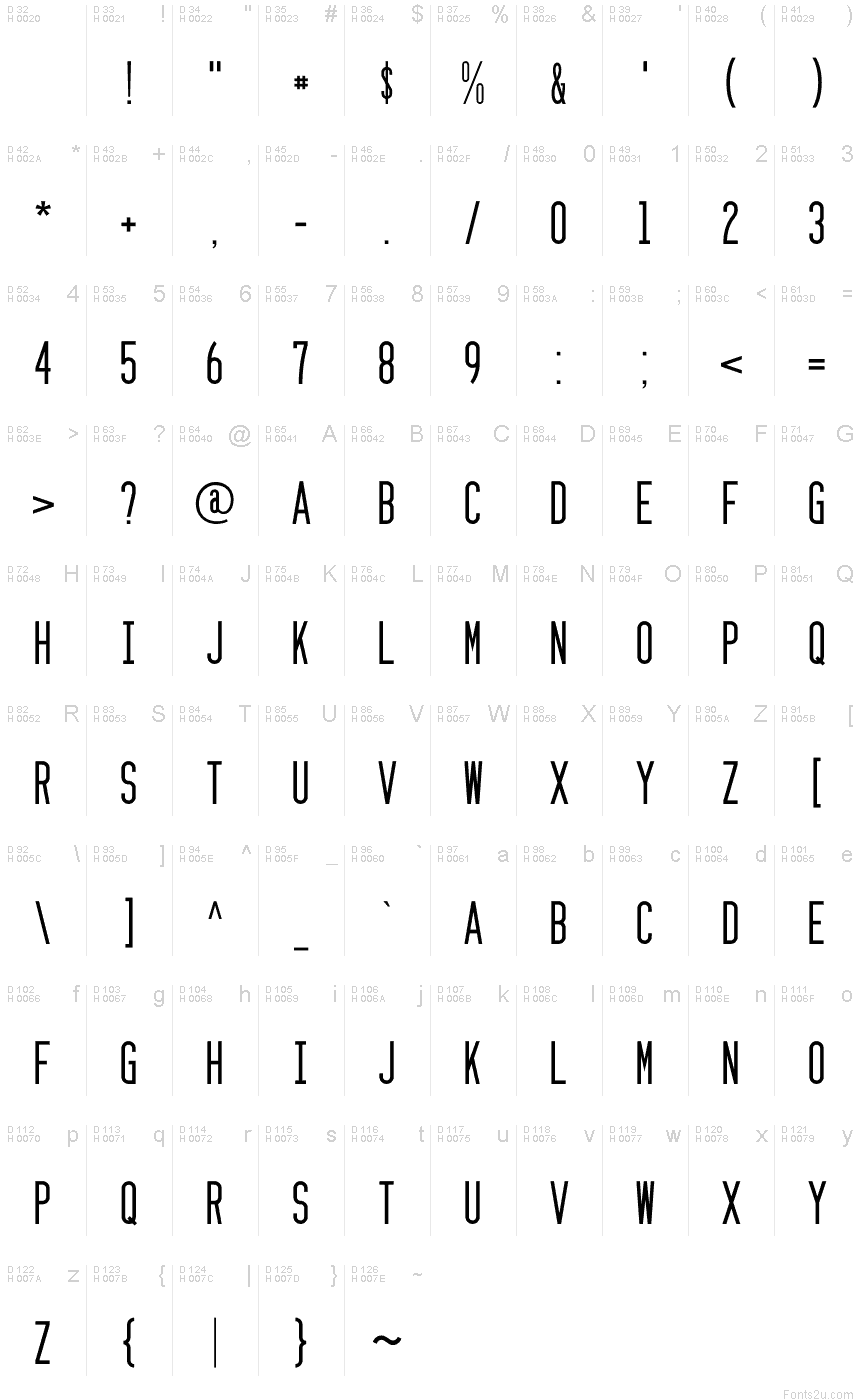
Zzyzx
Zzyzx, crafted by the imaginative Ash Pikachu Font, is a sans serif typeface that boasts a semi-light weight and semi-condensed width, offering a sophisticated blend of clarity and space efficiency. Its sleek lines merge contemporary style with functional elegance, making it an ideal choice for designers seeking to impart a modern flair to their projects. The subtle narrowing of its characters provides a unique visual rhythm that enhances readability while maintaining an airy aesthetic.
This font's versatility shines across various creative applications, from digital interfaces where space is at a premium to printed materials that require a touch of finesse without compromising on legibility. Zzyzx's harmonious proportions and understated sophistication render it perfectly suited for branding, editorial design, and user interface projects where distinction and approachability are paramount.